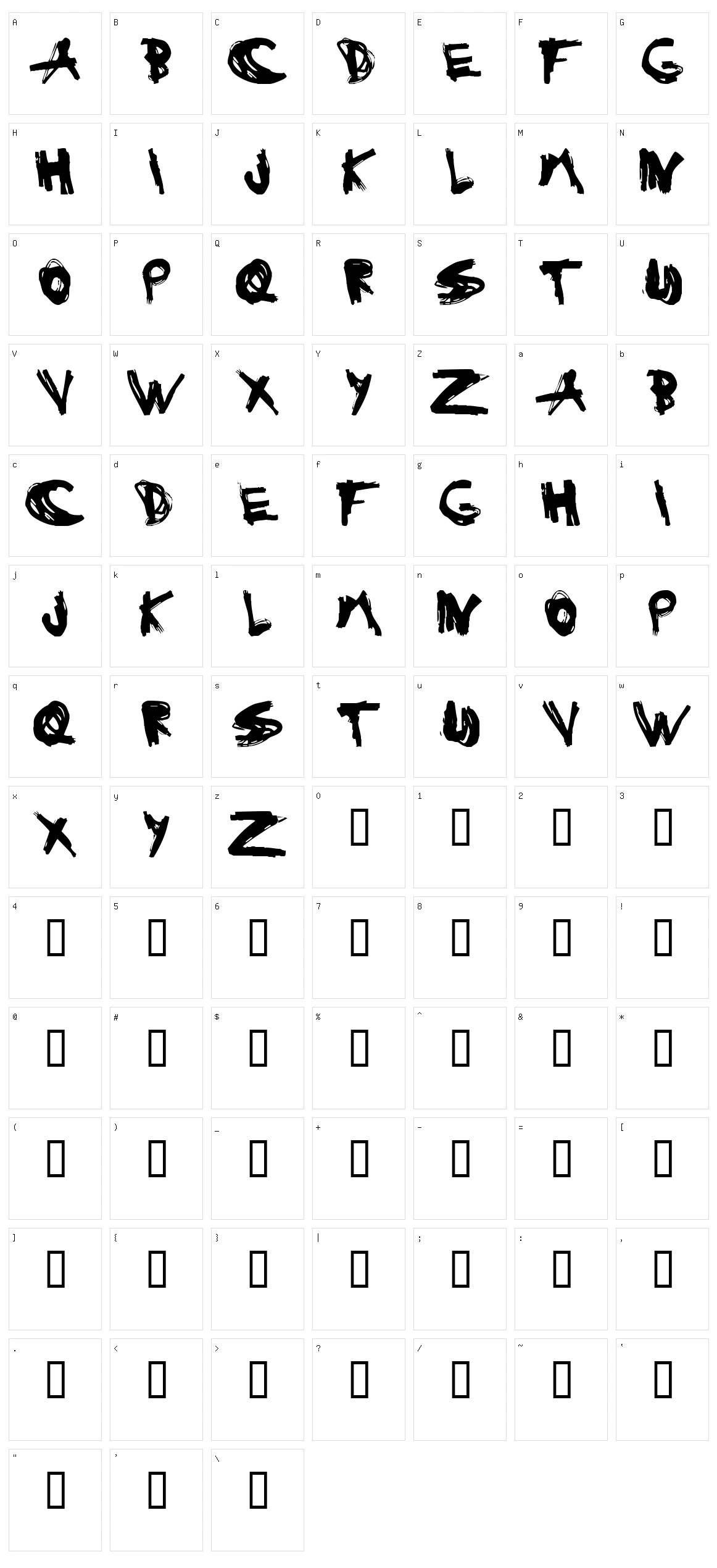
The free font Estuque is carefully designed by rpires76, showcasing a thoughtful balance of creativity and usability and falls under the Trash font style. When you download the ZIP file, it contains only 21.36 KB of font files, making it lightweight and quick to download. Please review the license details below to understand permitted usage and distribution rights. If license information is not available, we recommend using this font for personal projects only or contacting the author directly for commercial usage permissions.